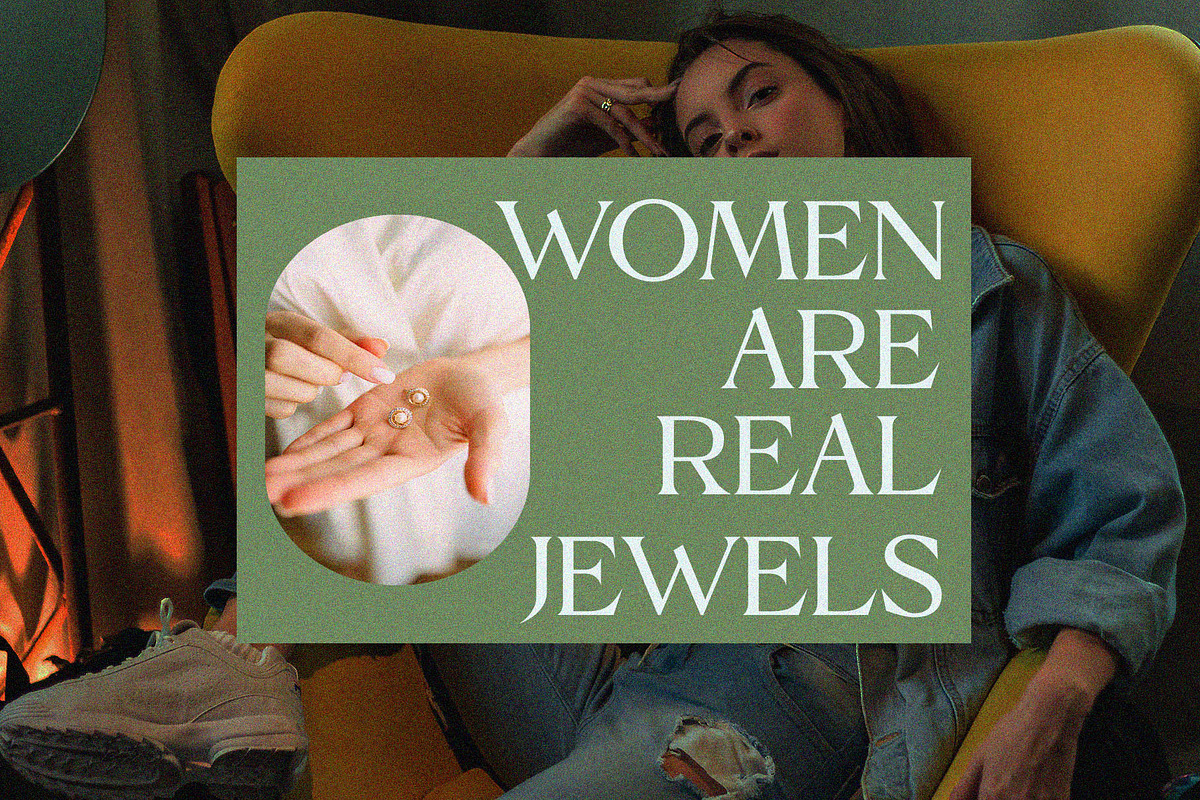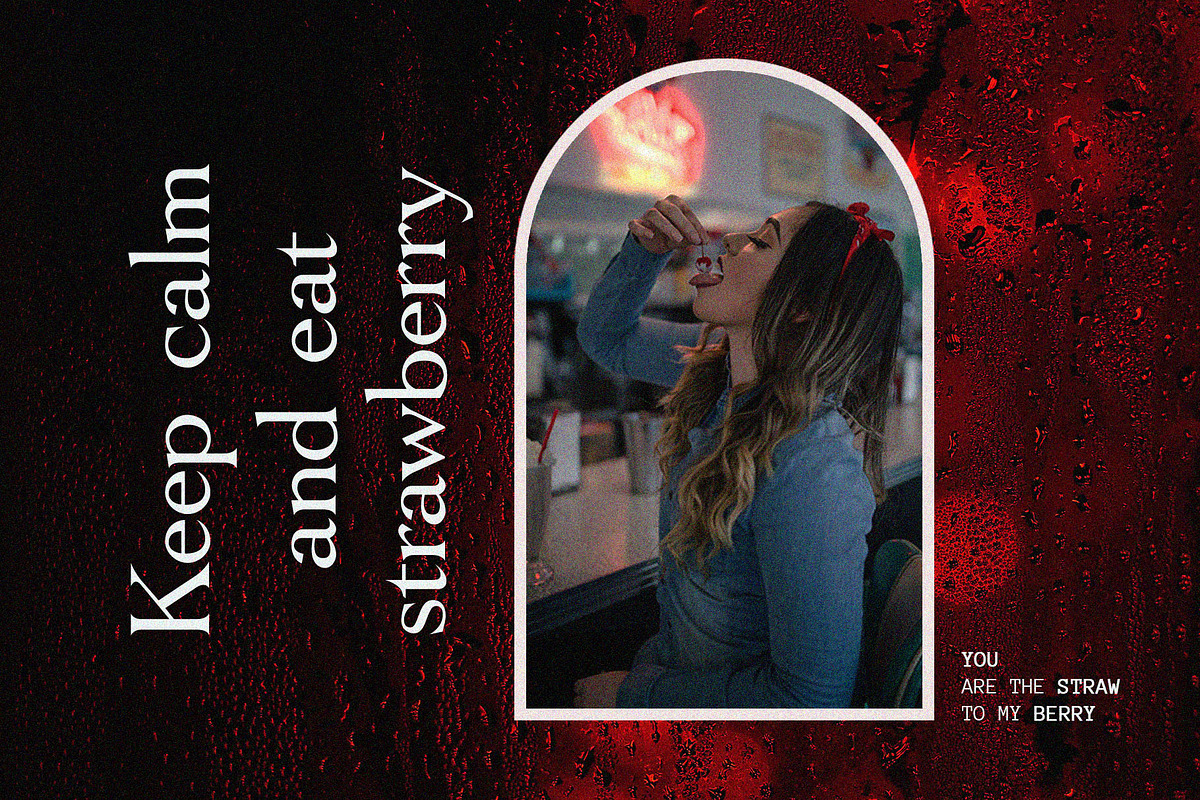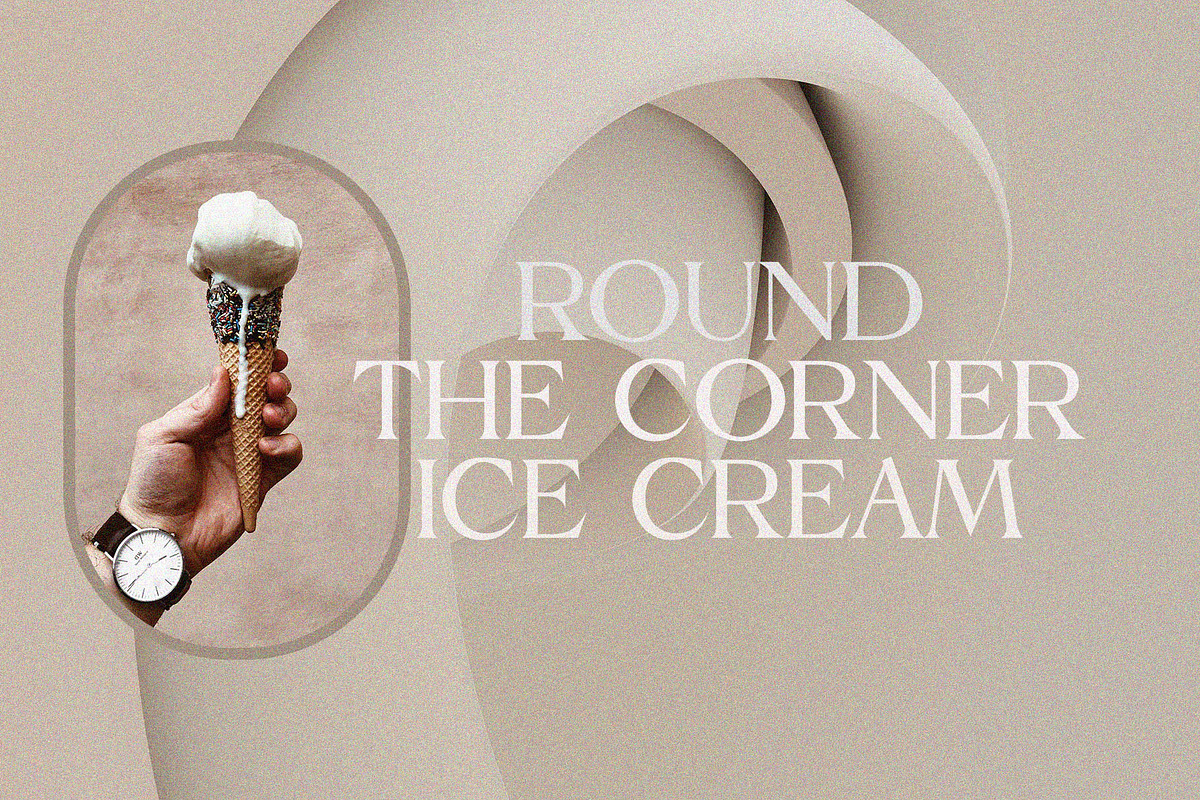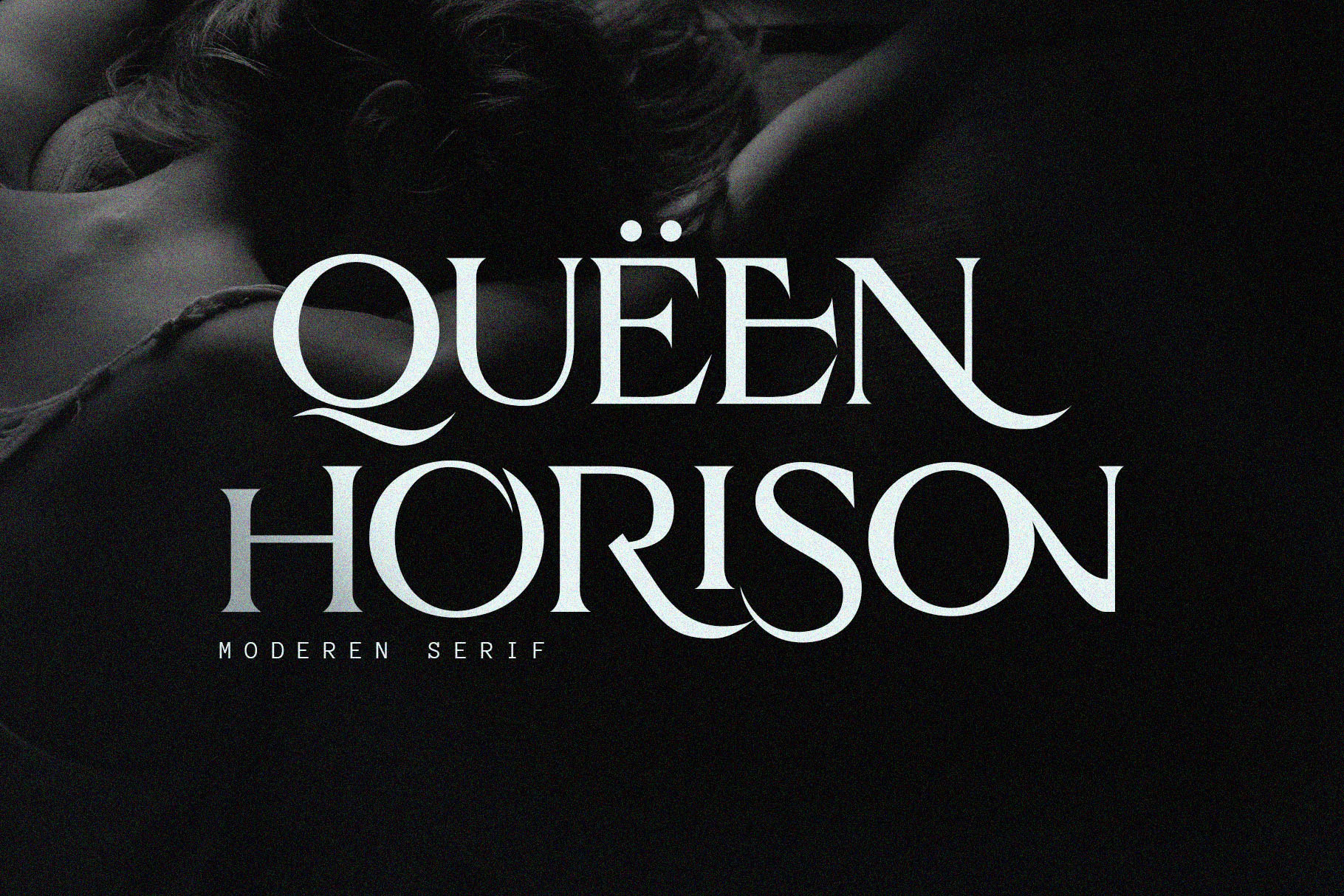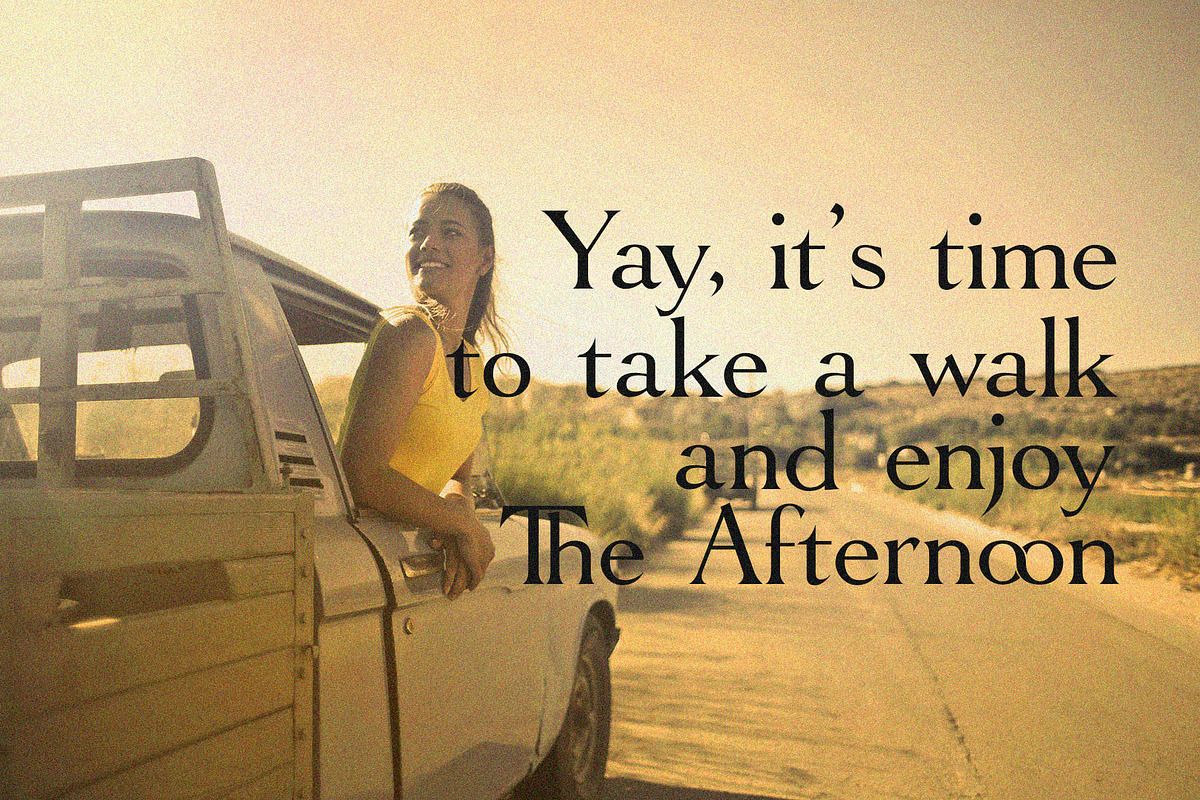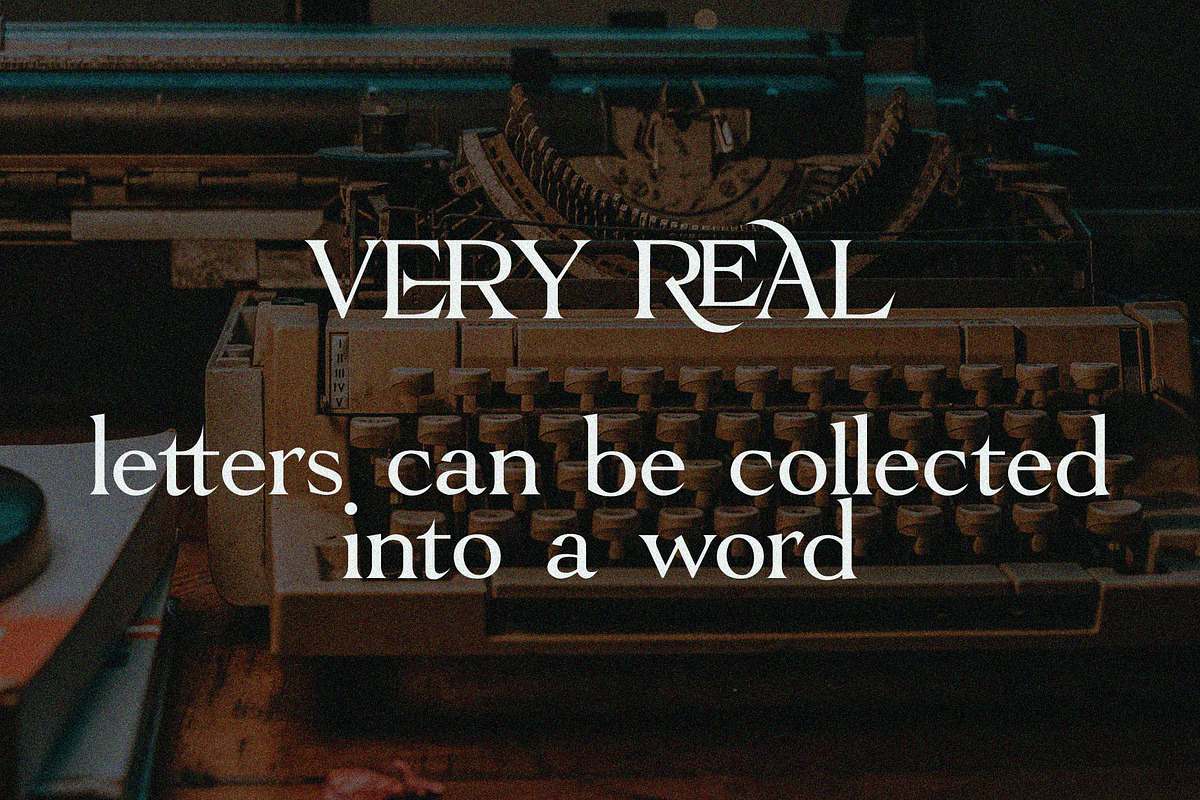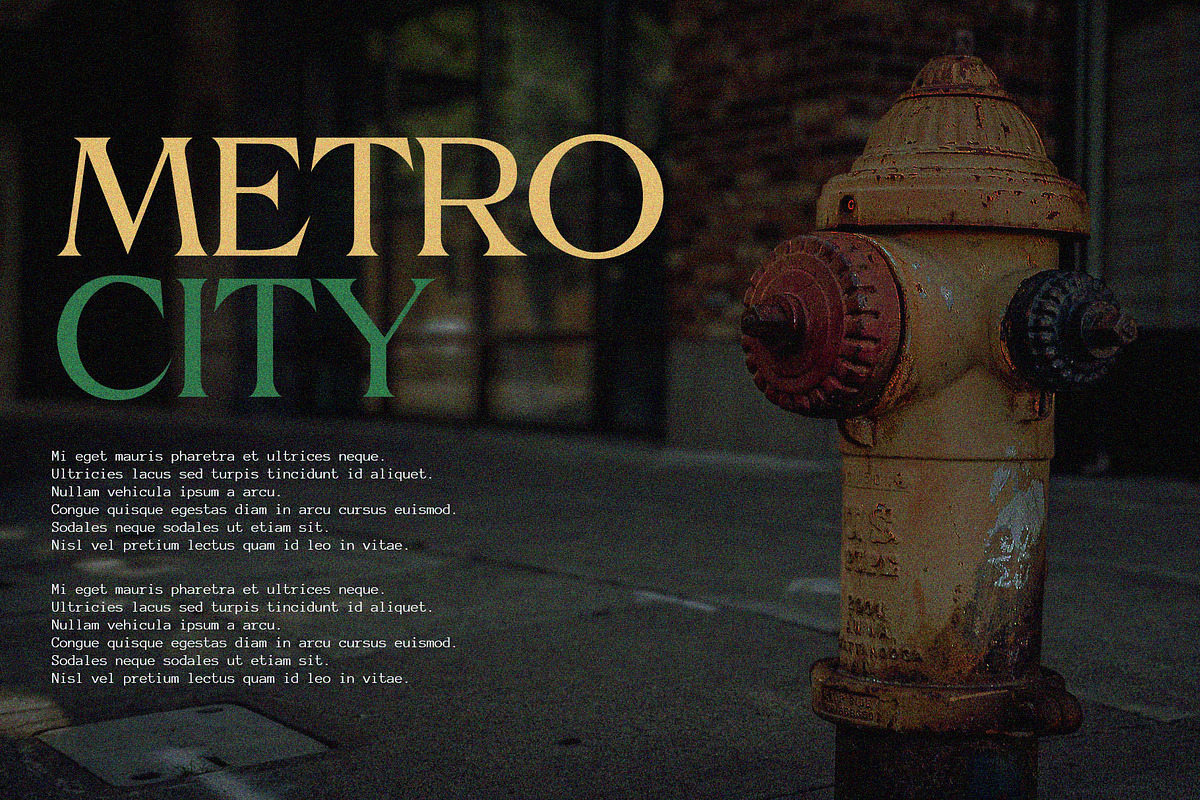
Horison Modern Serif Typeface
Introducing 'Horison' Font:
Introducing Horison, a modern and elegant serif font with beautiful and well-balanced characters. This versatile typeface complements a wide range of designs, bringing them to life with its refined aesthetic. Explore your most creative ideas and experience how Horison enhances them. Additionally, this font is PUA encoded, providing easy access to all glyphs and swashes for added design flexibility.
Ideal for:
- Classy Designs
- Beauty and Fashion
- Elegant Creations
- Jewelry
- Social Media Designs
- Magazines
- Ready for Creative Expression
- Immaculately Crafted Letters